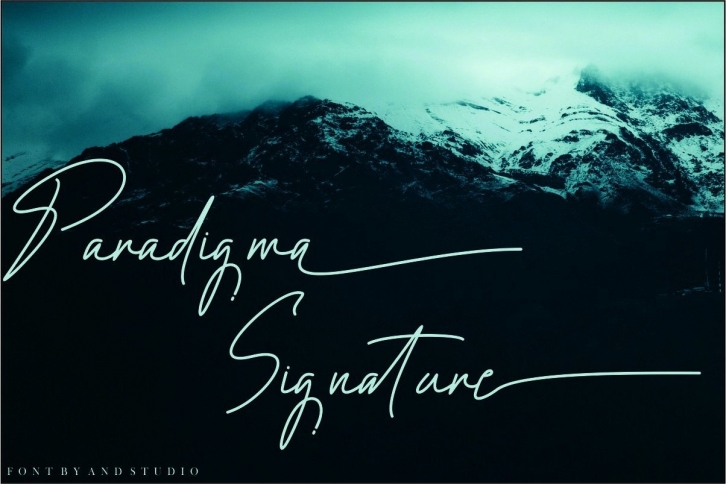
Paradigma Signature is a delicate and elegant handwritten font. Fall in love with its incredibly versatile style and use it to create spectacular designs!